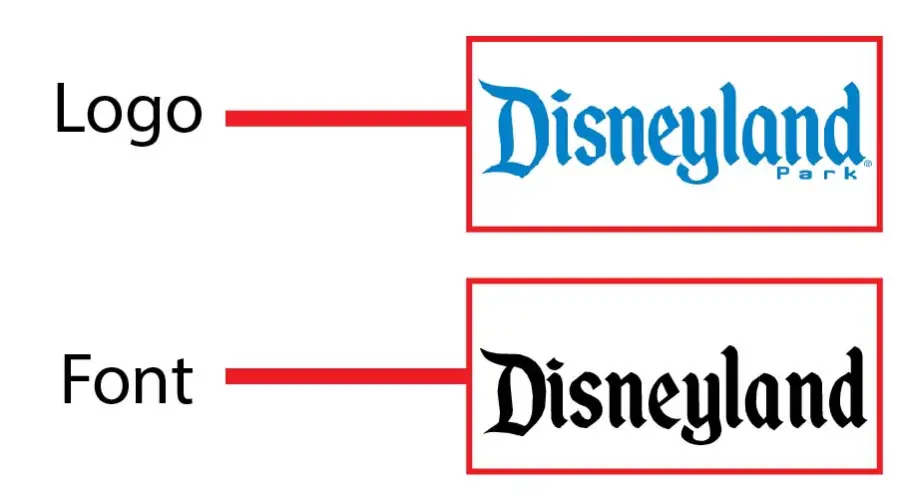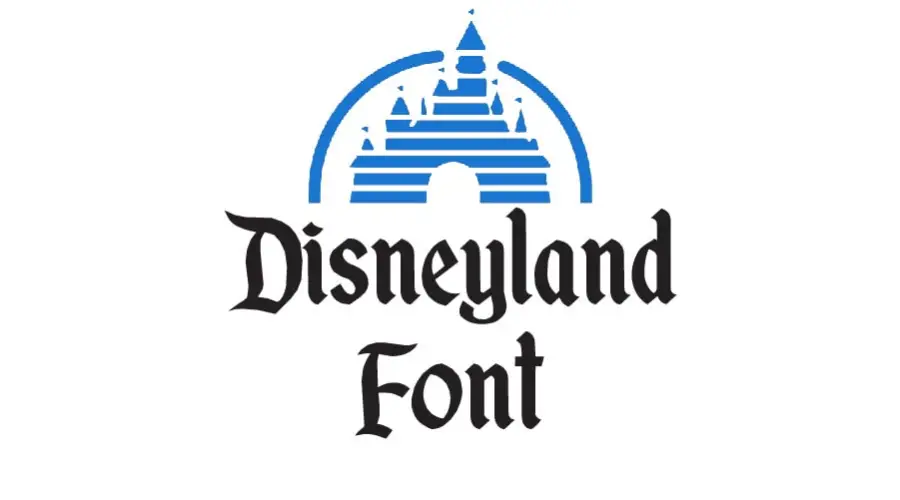
Disneyland Font
Are you looking for Disneyland Font? Then you’ve come to the right place! Disneyland is a theme park located in Anaheim, California, owned by The Walt Disney Company. It opened on July 17, 1955, and since then, it has been a place where dreams come true for millions of visitors. Disneyland is famous for its attractions, characters, and shows, but also for its distinctive logo and typography.
Disneyland Park vs Started by mouse Font Similarity Example
The font used in the Disneyland logo is custom-made, and it is not available for public use. However, there are some fan-made fonts that imitate the original style and feel. One of them is Started by Mouse designed by Robert Nava. This Gothic font has both capital and small letters, digits, and symbols. It has a distinct appearance and vibe that reflects Disneyland’s magical charm. That’s why people call it Disneyland-inspired font.
Disneyland Park vs Started by mouse Font Similarity Example
In summary, Disneyland is a theme park in California with a unique logo and font. The font is custom-made and not public, but you can use a similar fan-made font called Started by a Mouse. You can also use our free font generator to create text graphics with the font online.